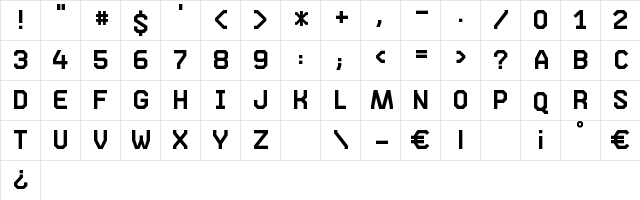
Phase 05 Regular Font Preview
Phase 05 Regular
Design Context for Phase 05 Typeface
Phase 05 offers clean, dependable letterforms without strong stylistic allegiance, making it a practical choice for designers who need flexibility.